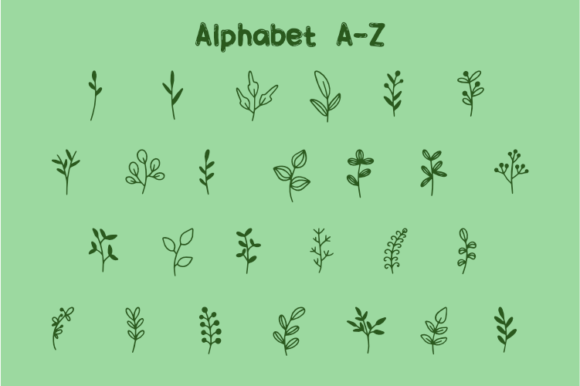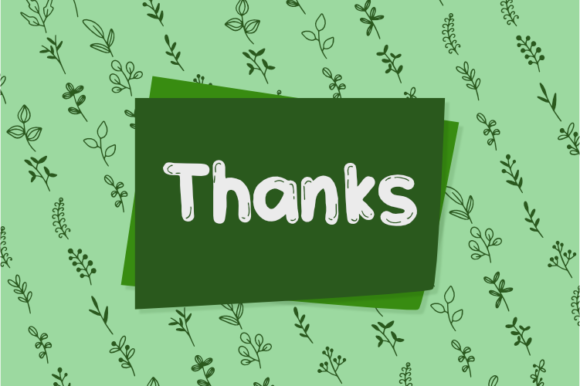
Introducing Floba Font: The Sweet and Delicate Dingbats Font for Designers and Crafters
Are you a designer, crafter, or digital artist looking for a unique and versatile font to elevate your creative projects? Look no further than Floba Font, a sweet, useful, and delicate dingbats font that’s perfect for a variety of applications. In this article, we’ll explore the features and benefits of Floba Font, and why it’s a must-have for anyone who loves crafting, digital designing, presentations, or making greeting cards.
What is Floba Font?
Floba Font is a dingbats font that features a collection of delicate and intricate designs, perfect for adding a touch of elegance and whimsy to your projects. The font is designed to be highly versatile, making it suitable for a wide range of applications, from crafting and digital designing to presentations and greeting cards.
Key Features of Floba Font
- Sweet and Delicate Designs: Floba Font features a range of sweet and delicate designs that are perfect for adding a touch of elegance and sophistication to your projects.
- Highly Versatile: The font is designed to be highly versatile, making it suitable for a wide range of applications, from crafting and digital designing to presentations and greeting cards.
Why Designers and Crafters Love Floba Font
So, why do designers and crafters love Floba Font? Here are just a few reasons:
- Unique and Eye-Catching Designs: Floba Font features unique and eye-catching designs that are sure to make your projects stand out from the crowd.
- Perfect for Crafting and Digital Designing: The font is perfect for crafting and digital designing, allowing you to add a touch of elegance and sophistication to your projects.
- Ideal for Presentations and Greeting Cards: Floba Font is also ideal for presentations and greeting cards, making it easy to create professional-looking documents and cards.
Tips and Tricks for Getting the Most Out of Floba Font
Here are some tips and tricks for getting the most out of Floba Font:
- Experiment with Different Sizes and Colors: Experiment with different sizes and colors to find the perfect combination for your project.
- Use Floba Font with Other Fonts: Use Floba Font with other fonts to create a unique and eye-catching design.
- Take Advantage of the Font’s Versatility: Take advantage of the font’s versatility by using it in a range of applications, from crafting and digital designing to presentations and greeting cards.